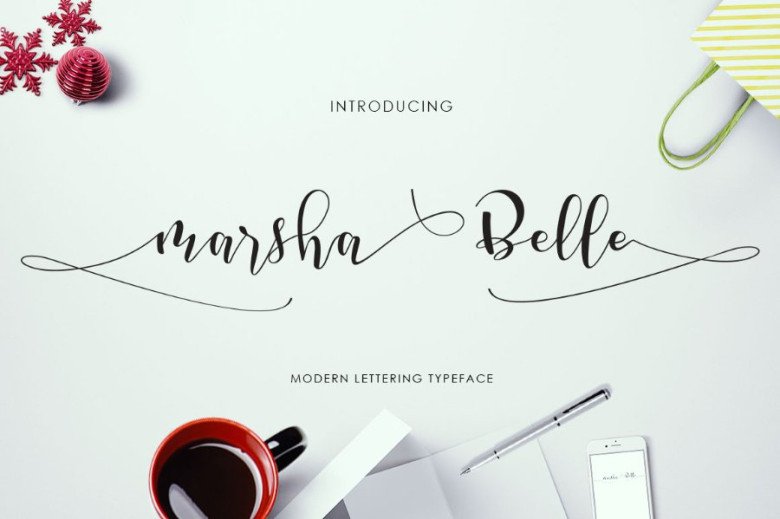
Marsha Belle Script Font
In design, we always emphasize beauty, and especially in fonts, we also want a nice font that fits well with our design content, I would like to introduce you to a new handwriting, it Perfect for you. Introducing Marsha Belle Script Font! Marsha Belle Script was designed by tegaki. Marsha Belle is a modern lettering typeface that comes with dancing up and down baseline. This beautiful fonts works properly and perfectly for logos, wedding invitation card, stationary, packaging, clothing, flyer, apparel, magazines, brochures, headings, signature, lable, news, posters, badges, etc. This beauty font was PUA encoded.